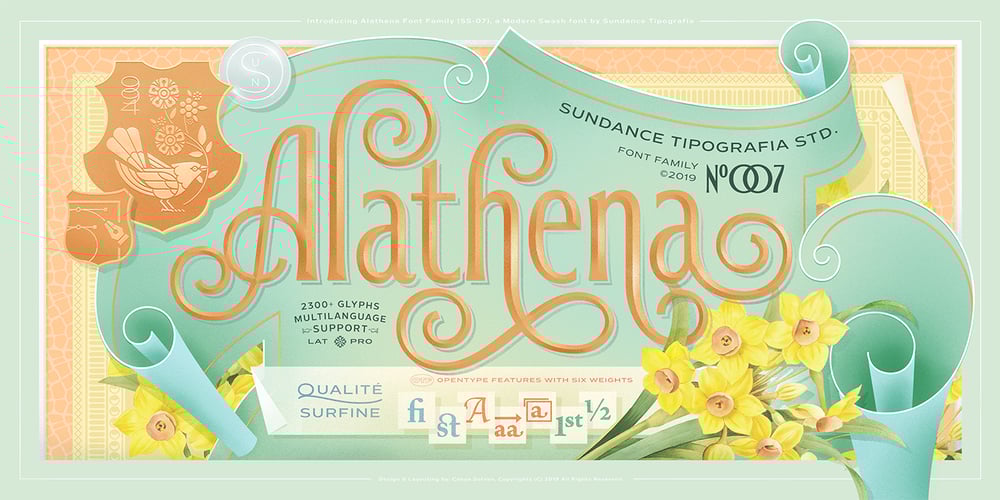
Alathena Font Family was designed by Cahya Sofyan and published by Studio Sun. Alathena contains 6 styles and family package options. Alathena was inspired by the French art decade between art nouveau to art deco, comes with 2 style, Alternative swash and Modern deco, with some modified ligatures. Available with 6 Weights, Thin, Extra Light, Light, Regular, Bold, Extra Bold with support 75+ language (Latin Pro), and contains OpenType features. – Matching small caps for all weights. – Old Style Figure. – Full “f” Ligature set. – 20+ Optional (discretionary) ligatures. – Over 400+ Swash Characters. – Automatic Fractions. – Automatic Ordinals. – Extended language support for most Latin-based Western and Central European languages, including all the swash and alternate characters.